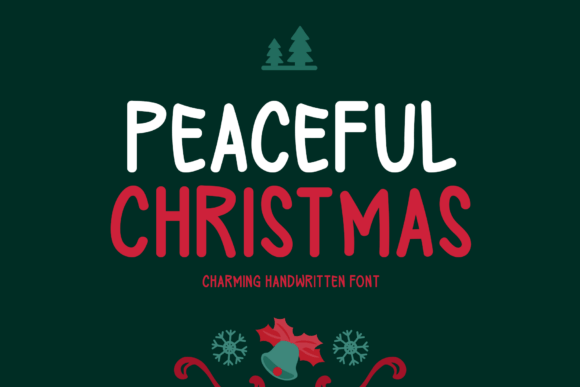
Introducing the Peaceful Christmas Font: A Delightful Handwritten Typeface for Holiday Cheer
The holiday season is upon us, and with it comes the need for festive and fun designs that capture the spirit of Christmas. If you’re a designer, crafty DIY enthusiast, or simply someone who loves to add a personal touch to your holiday cards and gifts, you’re in luck. The Peaceful Christmas Font is a charming handwritten typeface that’s perfect for adding a touch of whimsy and elegance to your holiday-themed designs and everyday projects.
A Font that Seamlessly Blends Sweetness with Personality
The Peaceful Christmas Font is a delightful handwritten typeface that exudes warmth and personality. Its unique blend of sweetness and playfulness makes it an ideal fit for a wide range of design projects, from holiday-themed posters and invitations to t-shirts, logos, and digital graphics. Whether you’re creating something special for a loved one or designing a festive holiday display for your business, this font is sure to impress.
Endless Design Possibilities with Peaceful Christmas Font
One of the best things about the Peaceful Christmas Font is its versatility. This delightful typeface can be used for a wide range of design projects, including:
- T-shirts and apparel: Add a festive touch to your holiday wear with this charming font.
- Logos and branding: Give your business a personal touch with a custom logo featuring the Peaceful Christmas Font.
- Posters and flyers: Create eye-catching holiday displays with this whimsical font.
- Invitations and cards: Add a touch of elegance to your holiday invitations and cards.
- Photo frames and digital graphics: Use the Peaceful Christmas Font to add a personal touch to your holiday photos and digital designs.
A Font that’s Easy to Use and Customize
Add a Touch of Handcrafted Elegance to Your Designs
The Peaceful Christmas Font features a unique handcrafted elegance that’s perfect for adding a personal touch to your designs. Its whimsical charm and playful personality make it an ideal fit for holiday-themed designs, while its elegance and sophistication ensure it will also work beautifully for everyday projects.
Why Choose the Peaceful Christmas Font?
With so many fonts to choose from, why select the Peaceful Christmas Font for your holiday designs? Here are just a few reasons why this delightful typeface stands out from the crowd:
- Unique and playful personality: The Peaceful Christmas Font has a one-of-a-kind personality that’s sure to capture the spirit of the holiday season.
- Versatility: This font can be used for a wide range of design projects, from holiday-themed posters and invitations to everyday designs.
- Handcrafted elegance: This font features a unique handcrafted elegance that’s perfect for adding a personal touch to your designs.
Tips for Using the Peaceful Christmas Font
To get the most out of the Peaceful Christmas Font, here are a few tips to keep in mind:
- Experiment with different colors and textures: The Peaceful Christmas Font looks beautiful in a range of colors and textures, so don’t be afraid to get creative.
- Pair it with other fonts: This font pairs beautifully with other holiday-themed fonts, so try combining it with a bold font for a festive look.
- Use it for titles and headings: The Peaceful Christmas Font is perfect for titles and headings, where its whimsical charm and elegance can really shine.
- Don’t be afraid to add embellishments: The Peaceful Christmas Font features a range of glyphs, swashes, and alternate characters, so don’t be afraid to add embellishments to your designs.
The Peaceful Christmas Font is a delightful handwritten typeface that’s perfect for adding a touch of whimsy and elegance to your holiday-themed designs and everyday projects. With its unique blend of sweetness and personality, this font is sure to capture the spirit of the holiday season. Whether you’re a designer, crafty DIY enthusiast, or simply someone who loves to add a personal touch to your holiday cards and gifts, the Peaceful Christmas Font is an ideal choice.
Get Ready to Make Your Holiday Designs Shine with Peaceful Christmas Font